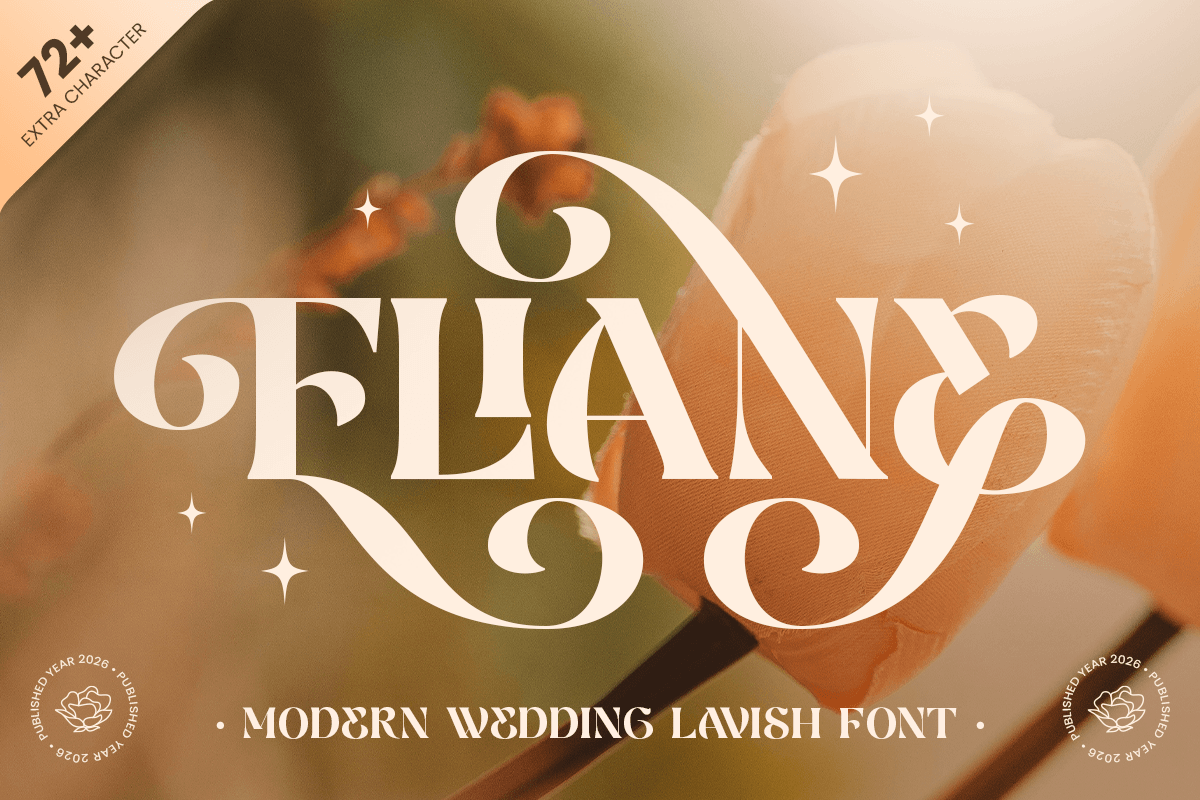
Eliane
-Modern Wedding Lavish FontEliane - Modern Wedding Lavish Font
ELIANE is a modern wedding lavish font crafted to bring romance, elegance, and refined beauty to your special design projects. With graceful letterforms, stylish curves, and a luxurious visual tone, this typeface is ideal for wedding invitations, bridal stationery, elegant branding, and premium event design.
Designed for creators who want typography that feels soft yet sophisticated, ELIANE combines modern charm with lavish detailing. Its polished style works beautifully for wedding monograms, save-the-date cards, boutique logos, fashion editorials, beauty packaging, and romantic social media visuals.
Whether used for invitation titles, brand marks, packaging labels, or editorial headlines, ELIANE delivers a timeless and graceful impression across both print and digital media.
ELIANE – Modern Wedding Lavish Font Features
Elegant wedding font with modern lavish character
Perfect for invitations, bridal stationery, logos, and luxury branding
Romantic letterforms with refined visual proportions
Ideal for weddings, beauty, fashion, lifestyle, and boutique projects
OpenType features for enhanced typographic styling
Create romantic elegance with ELIANE – the perfect lavish wedding font for invitations, luxury branding, and timeless design. ✨💍